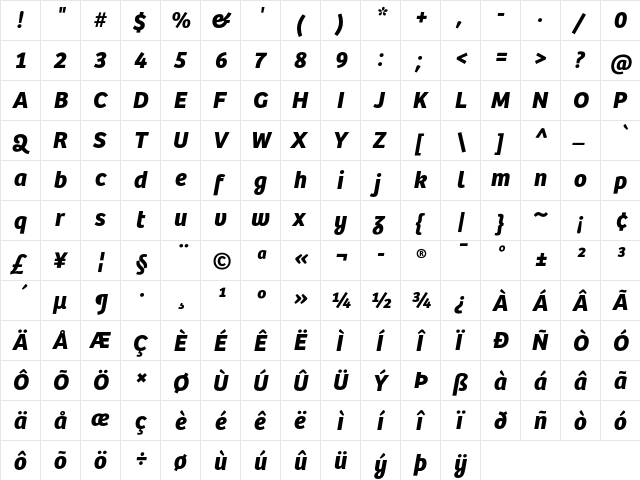
Bree Bold Oblique
| Foundry | TypeTogether |
| Designer | Veronika Burian, JosΠScaglione |
Design Context for Bree Typeface
Bree offers clean, dependable letterforms without strong stylistic allegiance, making it a practical choice for designers who need flexibility. Its italic angle brings a sense of urgency and motion to the letterforms. Its bold stroke weight gives it real presence on the page.
Pro Tip: Use Bree for emphasis, pull quotes, and subheadings where its slanted energy can add rhythm to the layout.